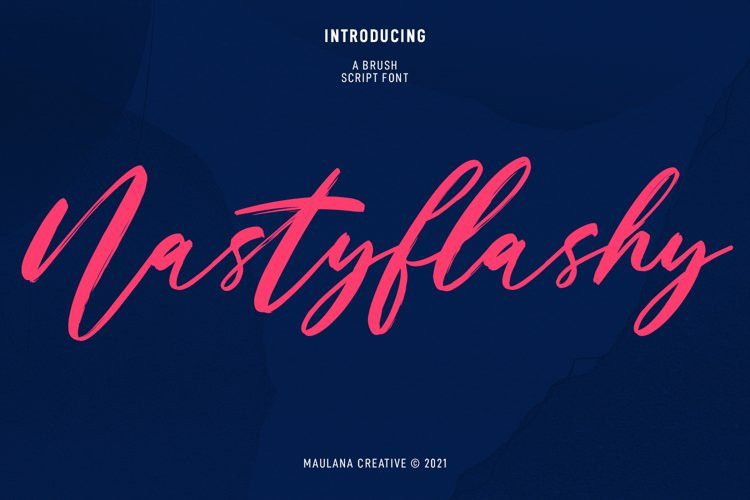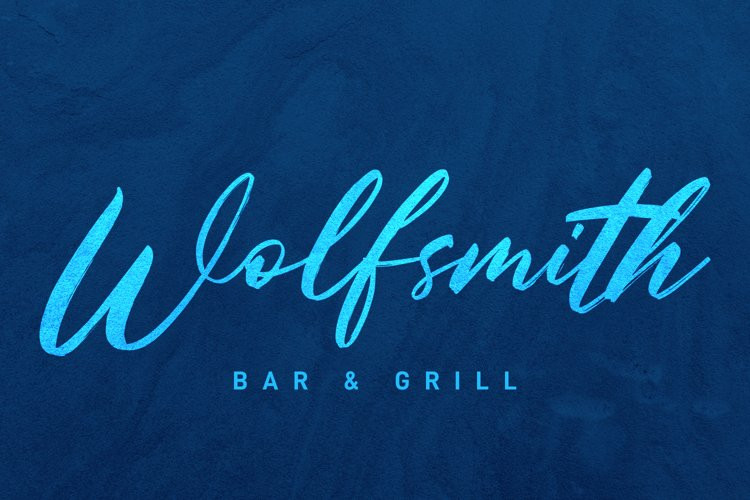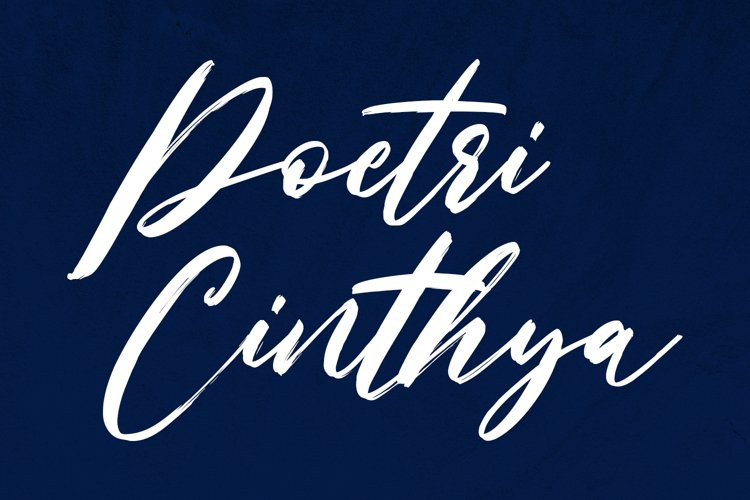
Nastyflashy Font
Nastyflashy“Nastyflashy” is an expressive brush script font. With regular brush stroke, fun character with a bit of ligatures and has a two files lowercase alternates and swashes. To give you an extra creative work. “Nastyflashy “font support multilingual more than 100+ language. This font is good for logo design, Social media, Movie Titles, Books Titles, a short text even a long text letter and good for your secondary text font with sans or serif. Make a stunning work with “Nastyflashy” font.